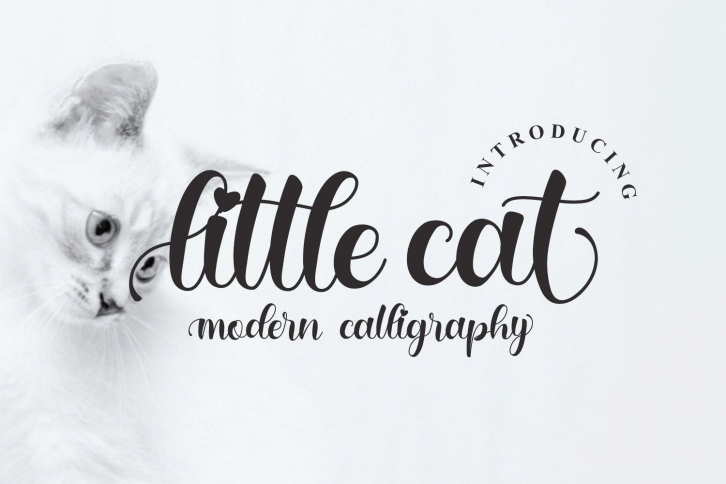
little cat is a trendy and unique font with an authentic style. It was designed by letterfandstudio and it's a great choice for creative people who need such a font. It was released on September 21, 2020 and the file size is 8.17 MB. little cat will add an organic vibe to any design idea!